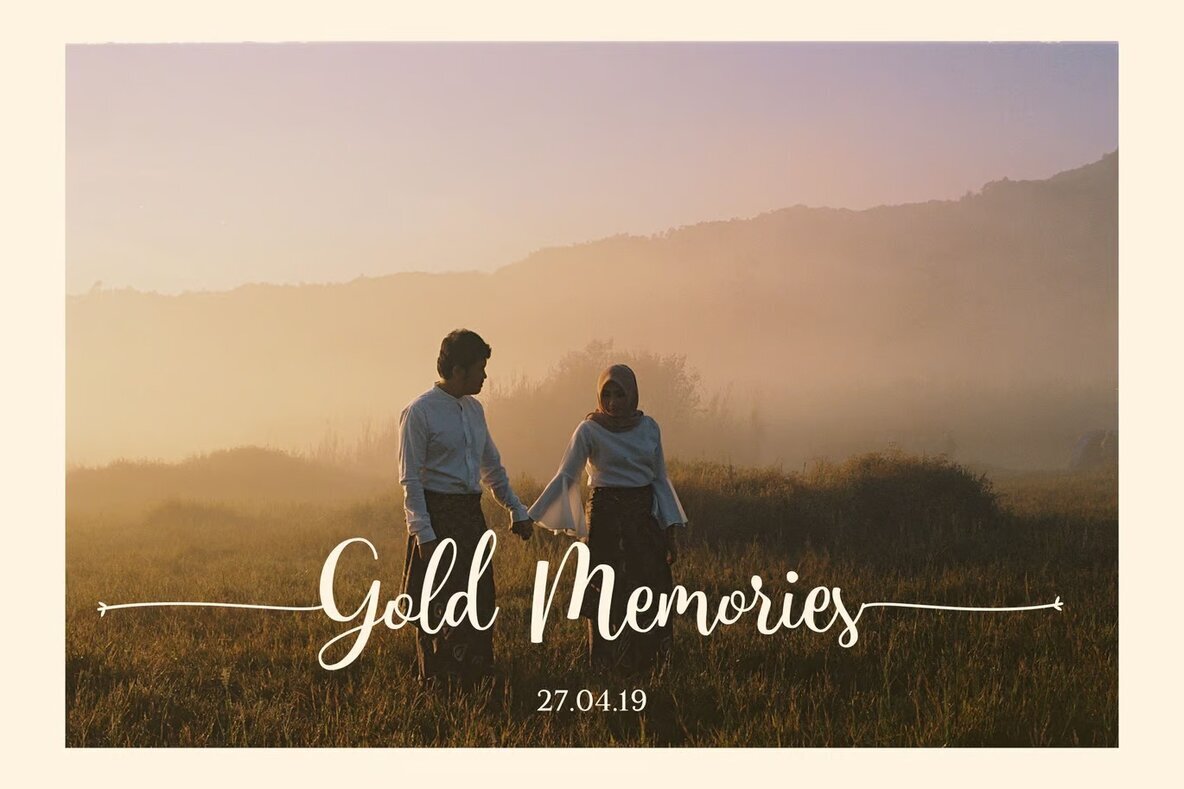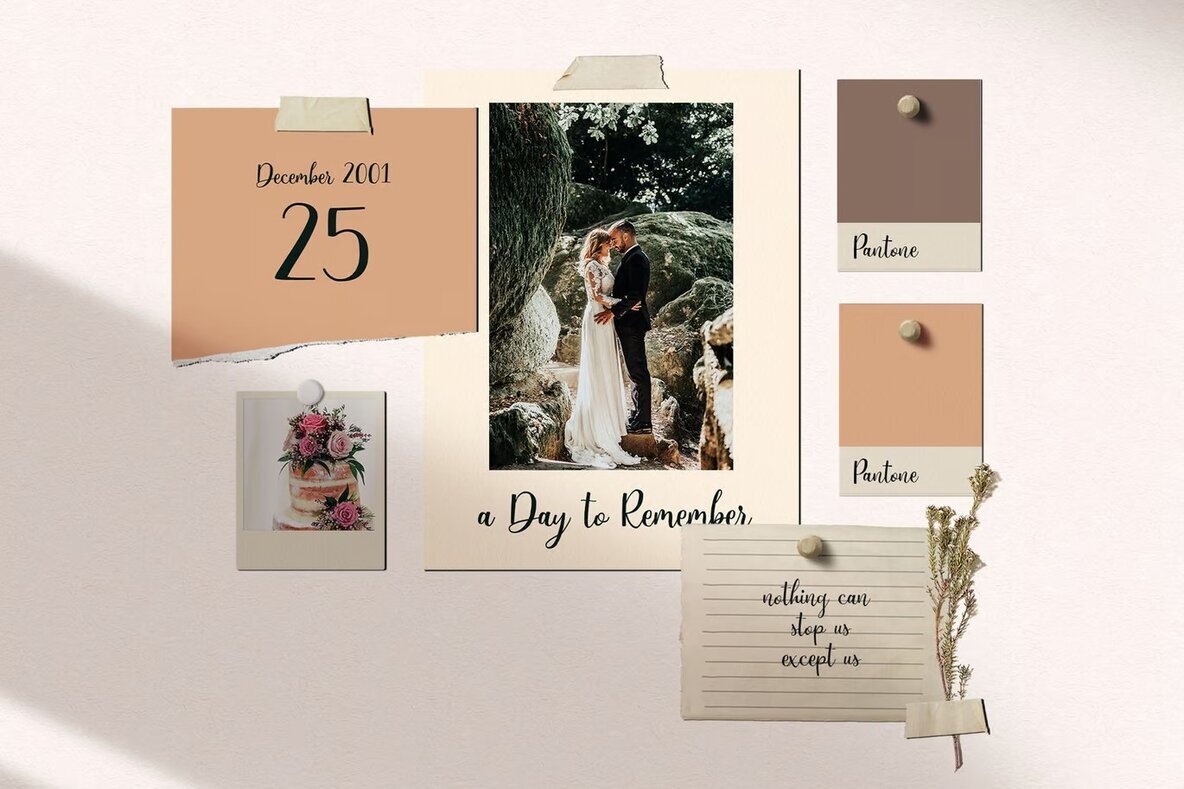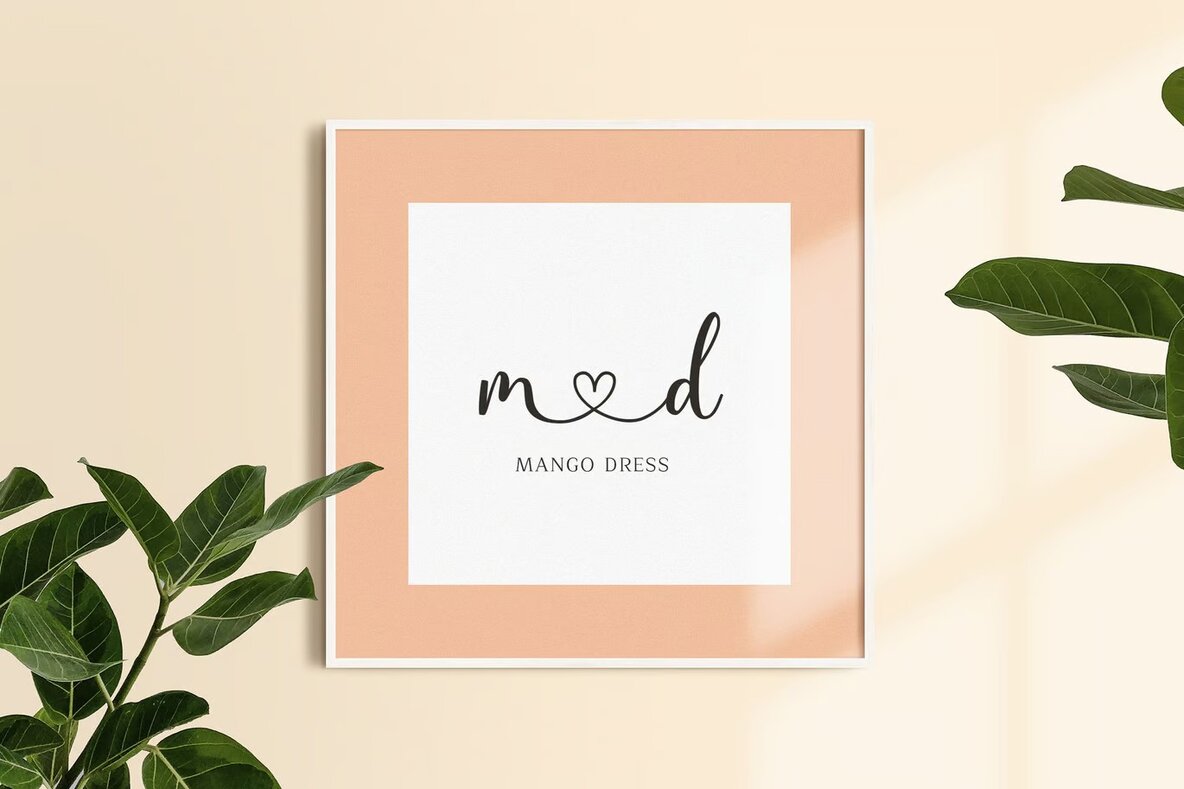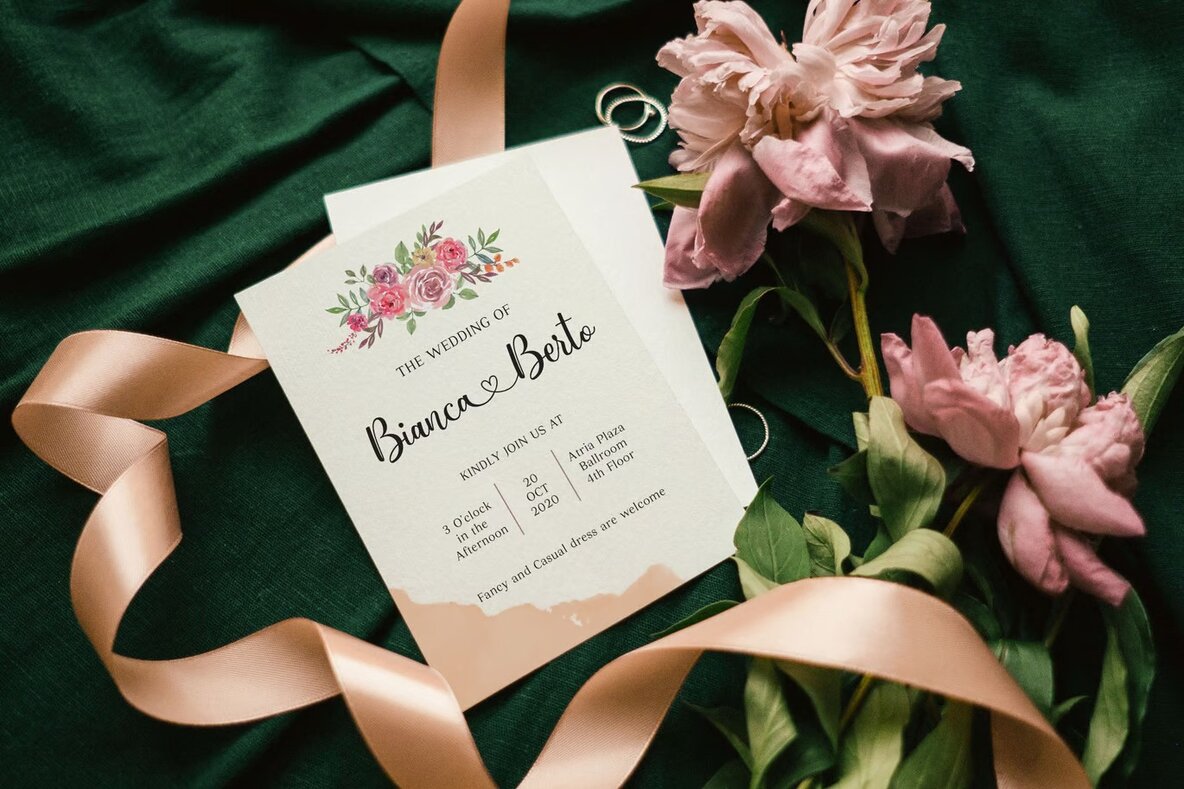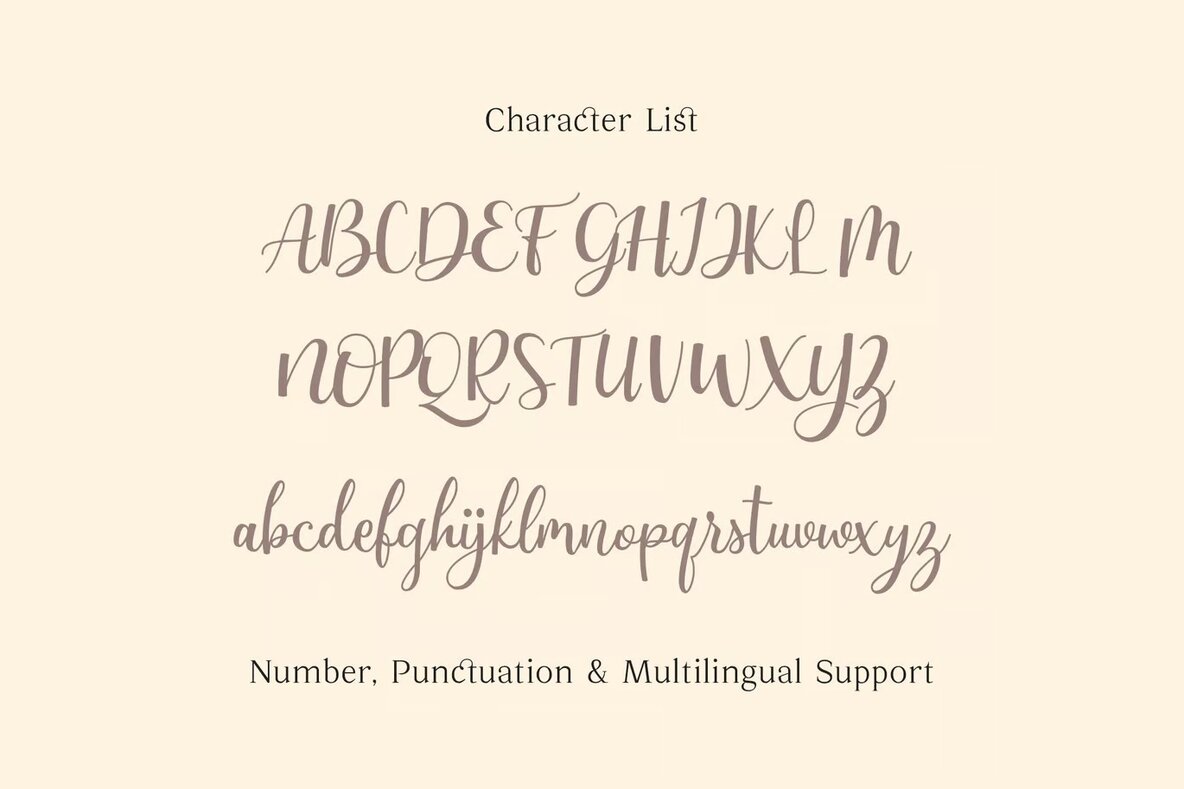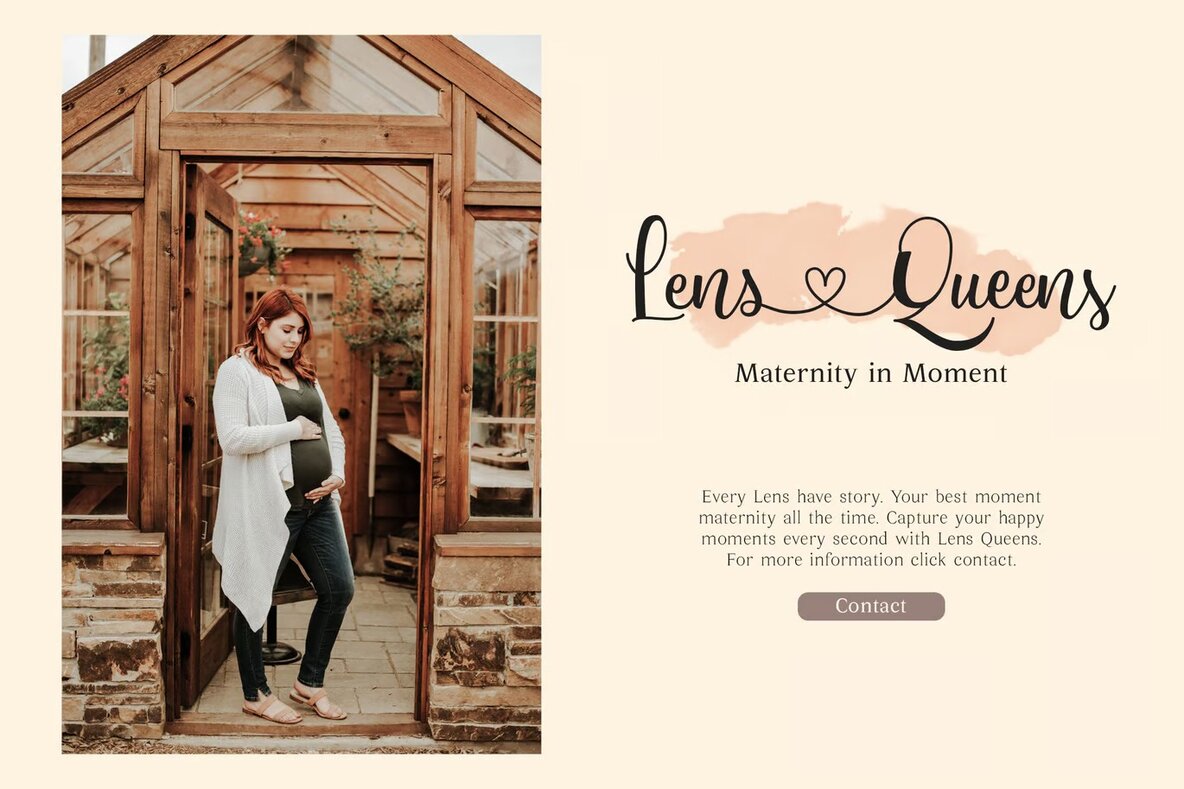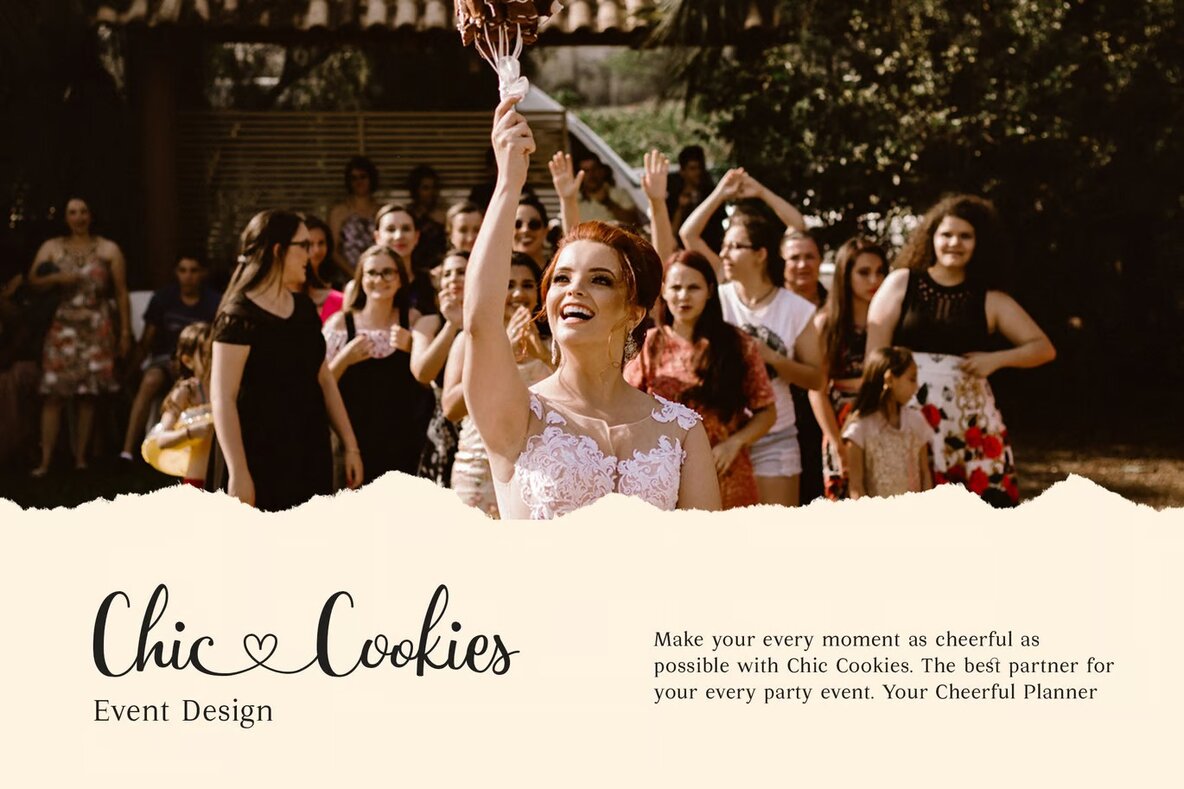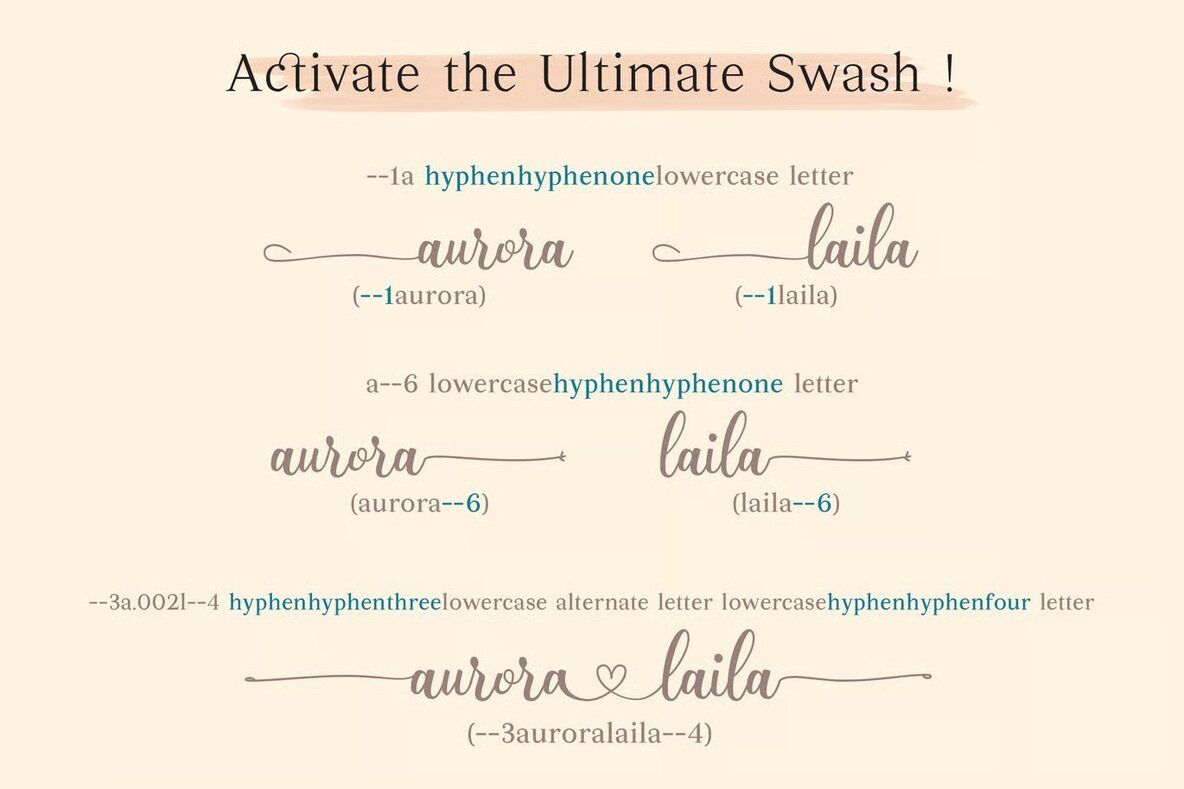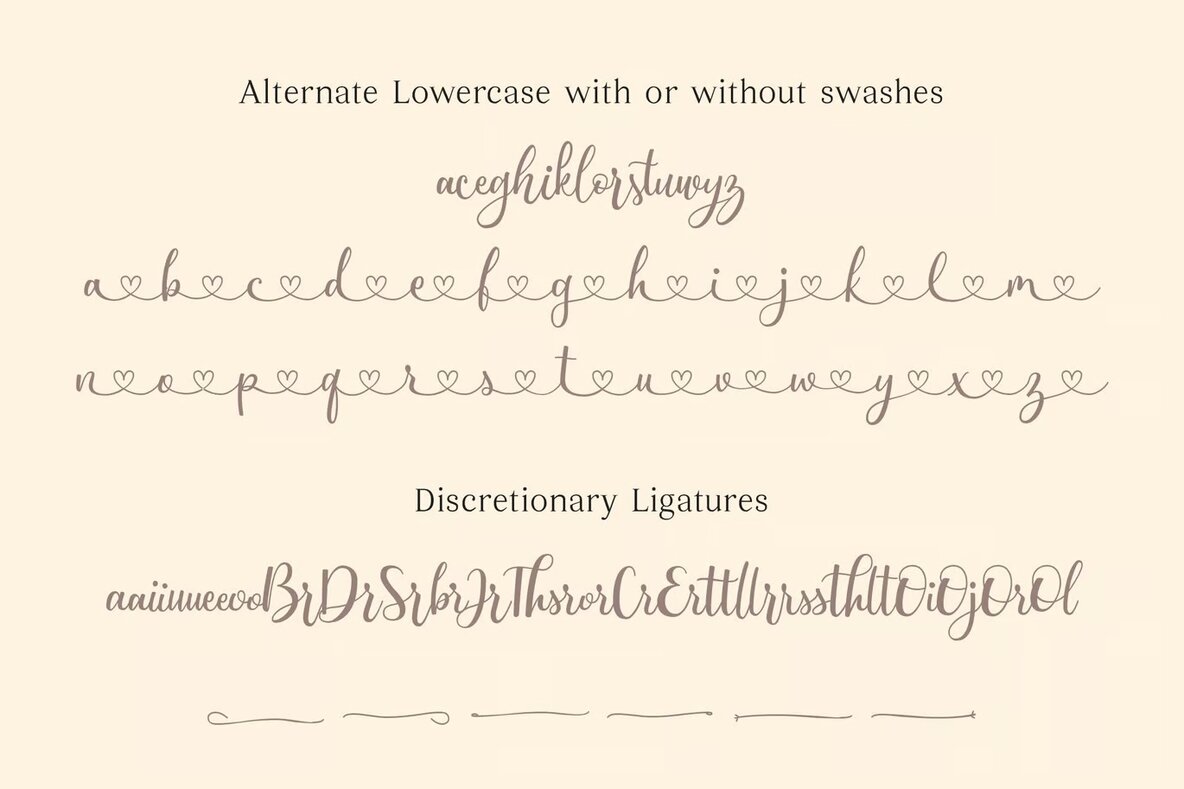
Marrie Dream Font
Marrie Dream Regular
Marrie Dream is a stunning calligraphy script font that blends elegantly with any design project. Ideal for wedding designs, blogging, social media, branding, invitations, and greeting cards, this font offers a unique flow and effortless calligraphy style that enhances your creative work.
Featuring ligatures and swashes, Marrie Dream provides the flexibility needed to craft beautifully intricate calligraphy designs. Whether you're aiming for a graceful invitation or a sophisticated social media post, this font elevates your project with its versatile and stylish character.